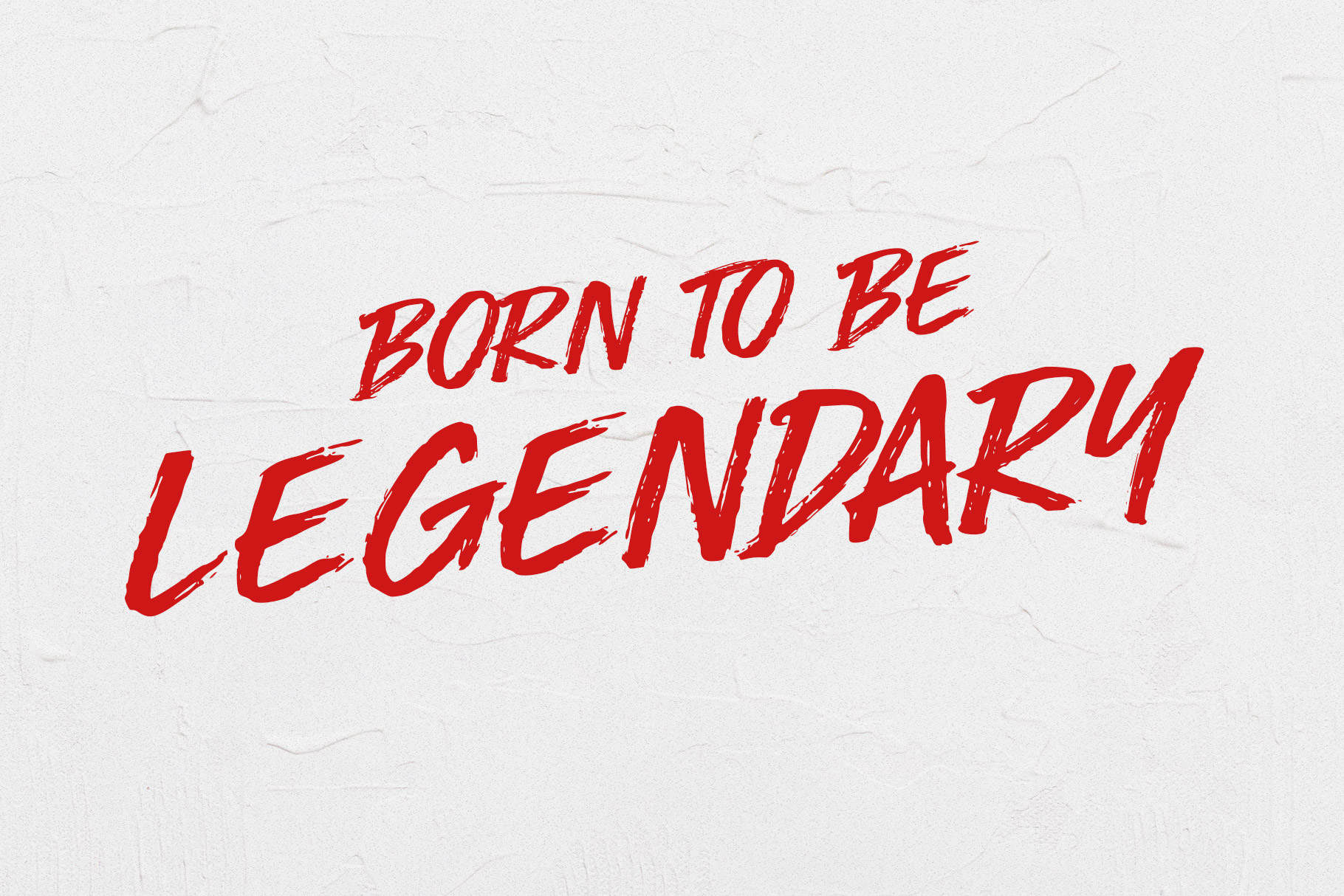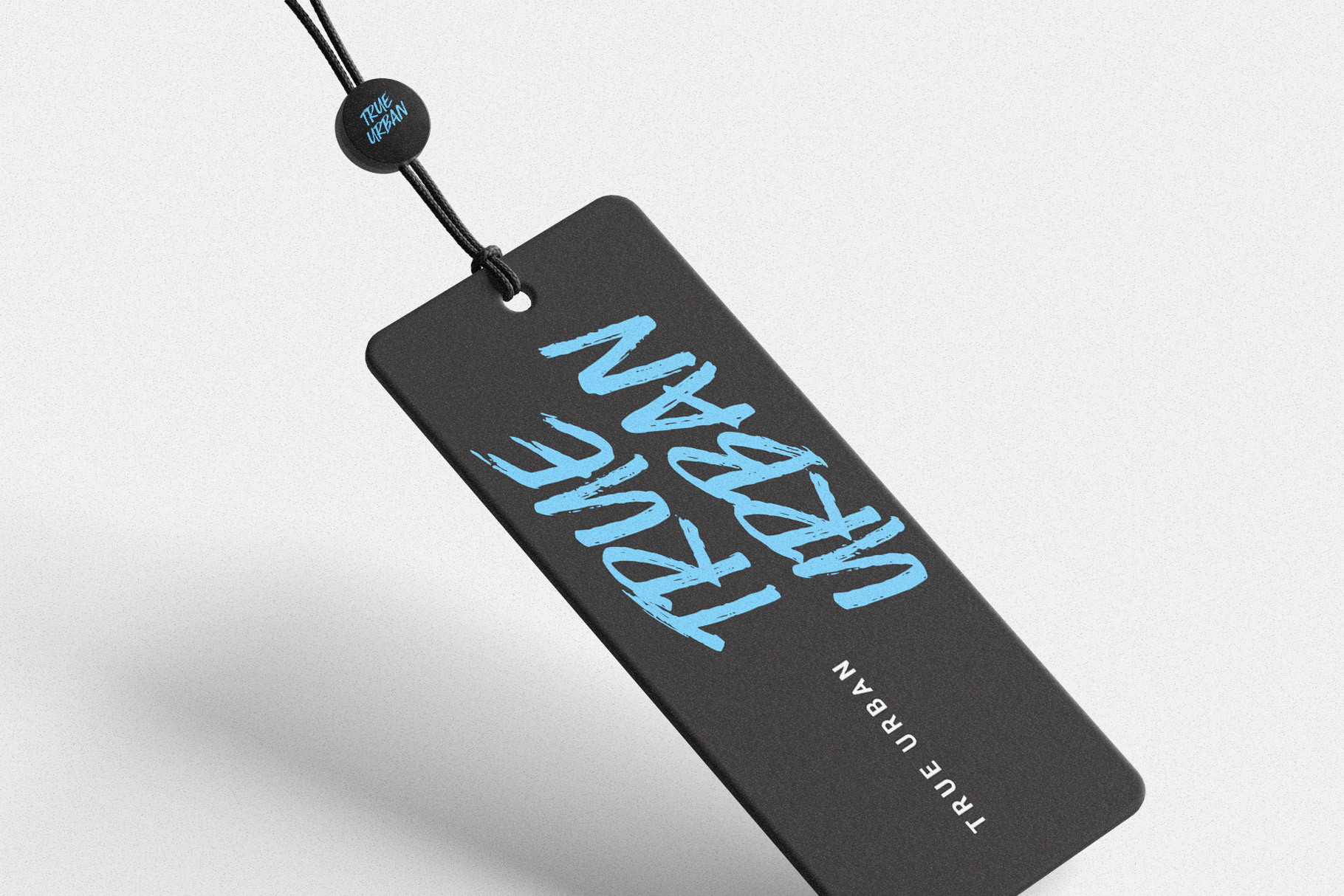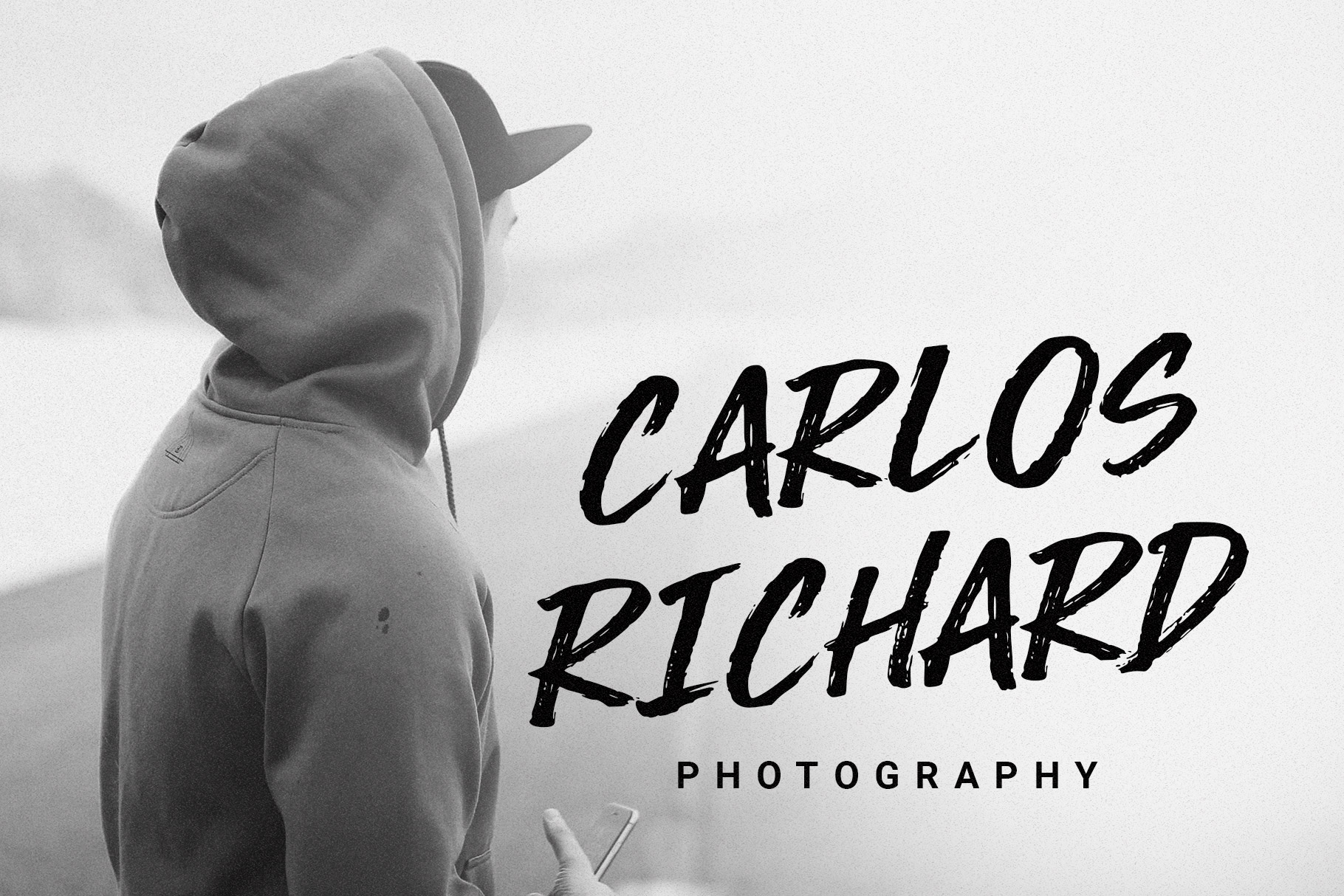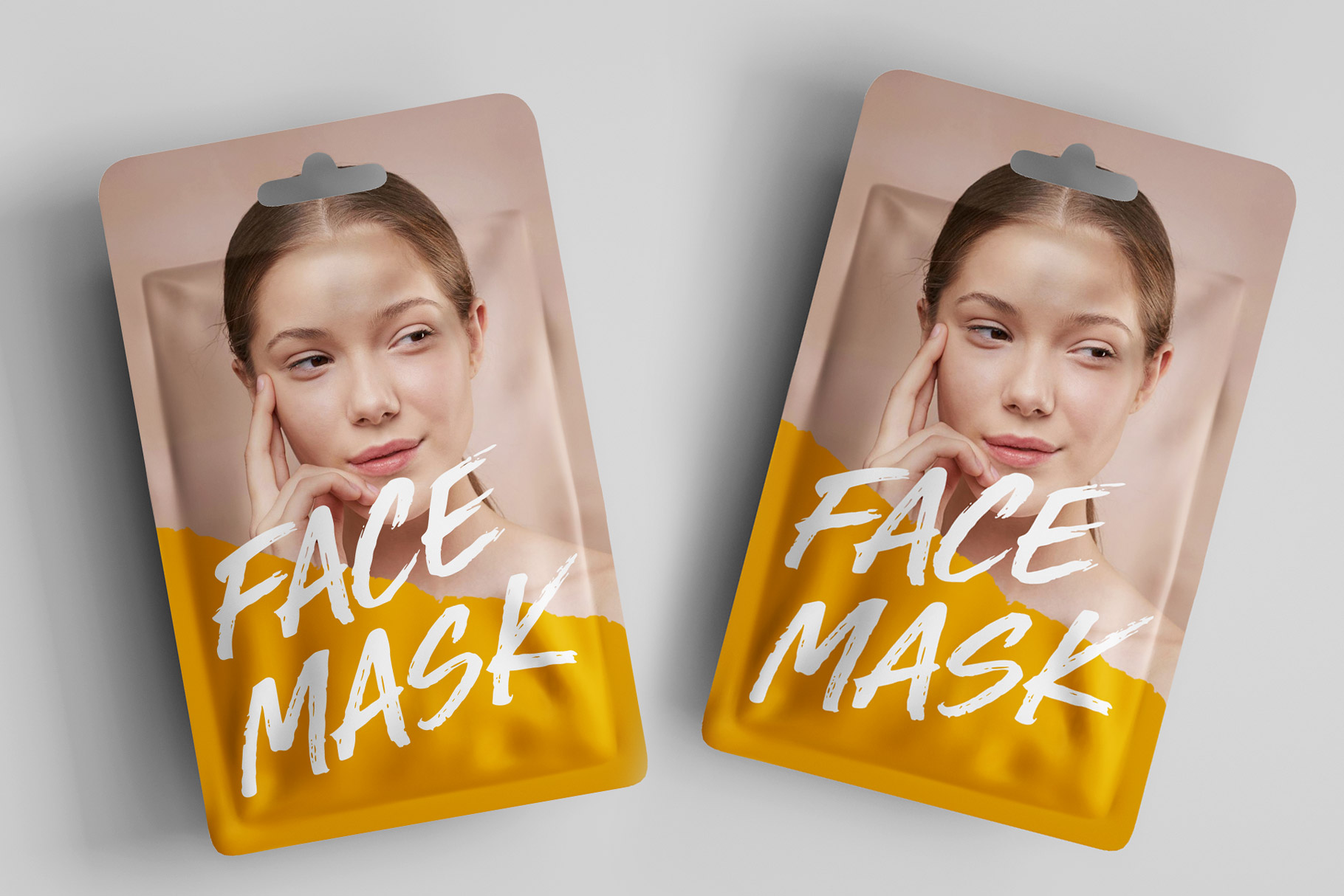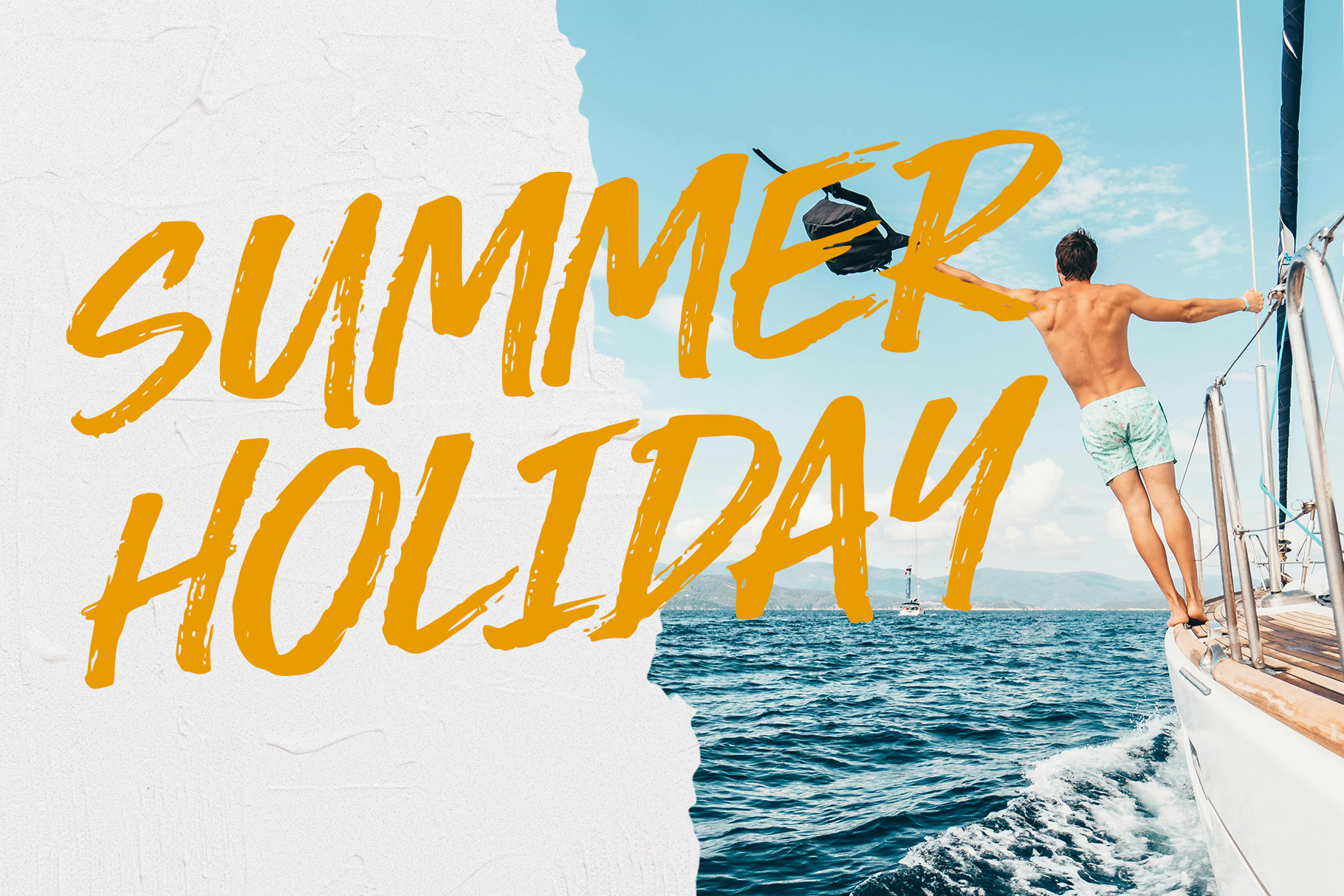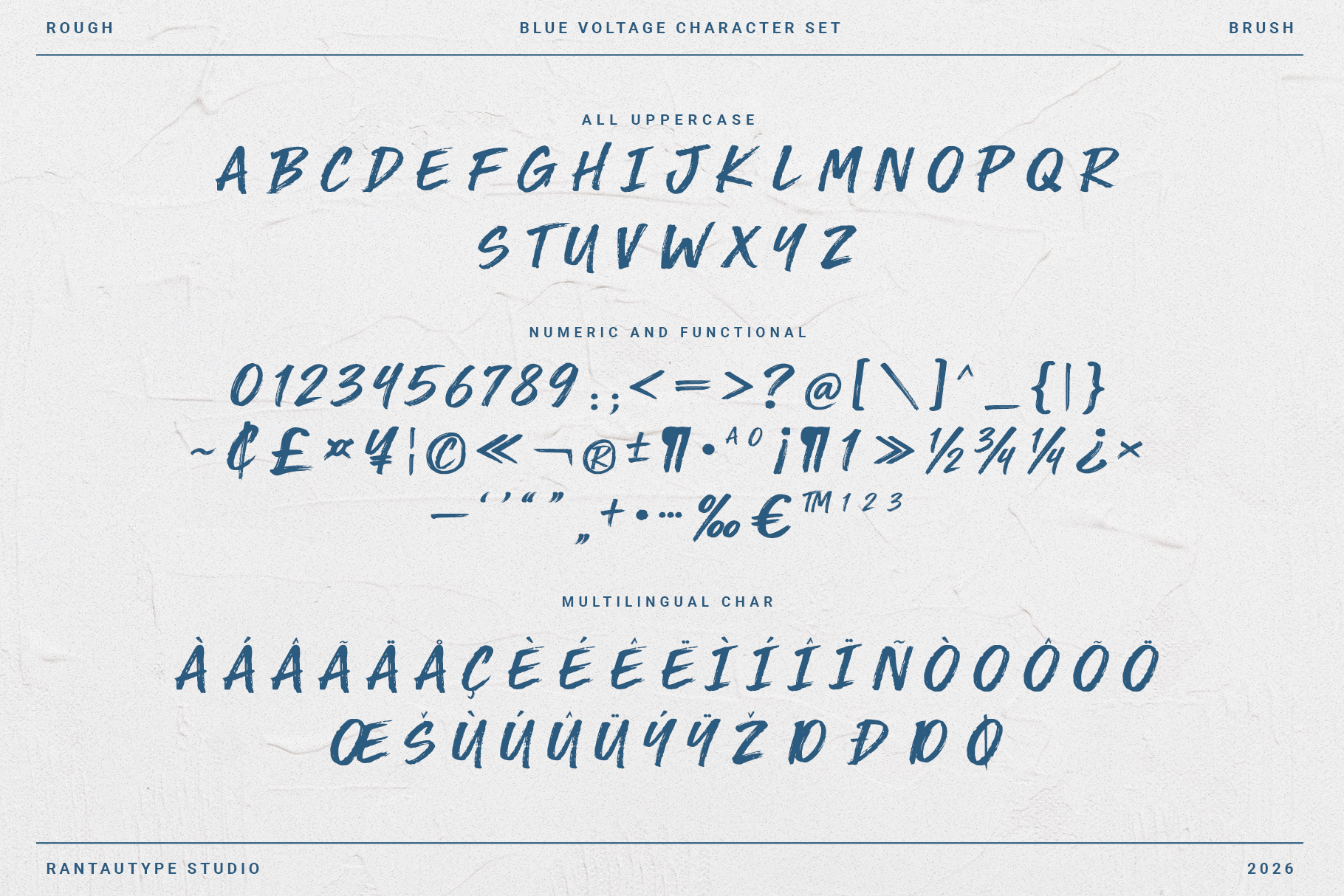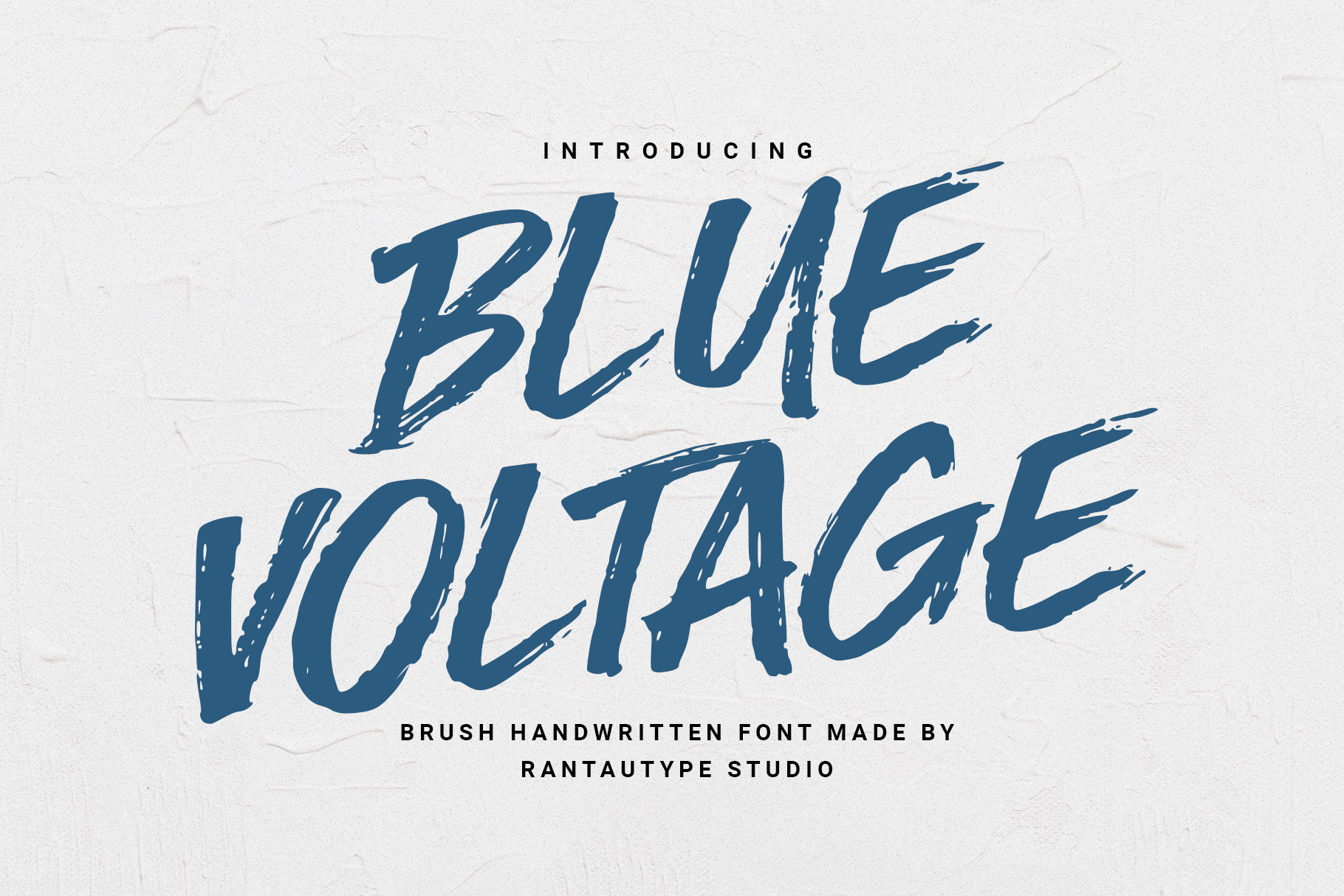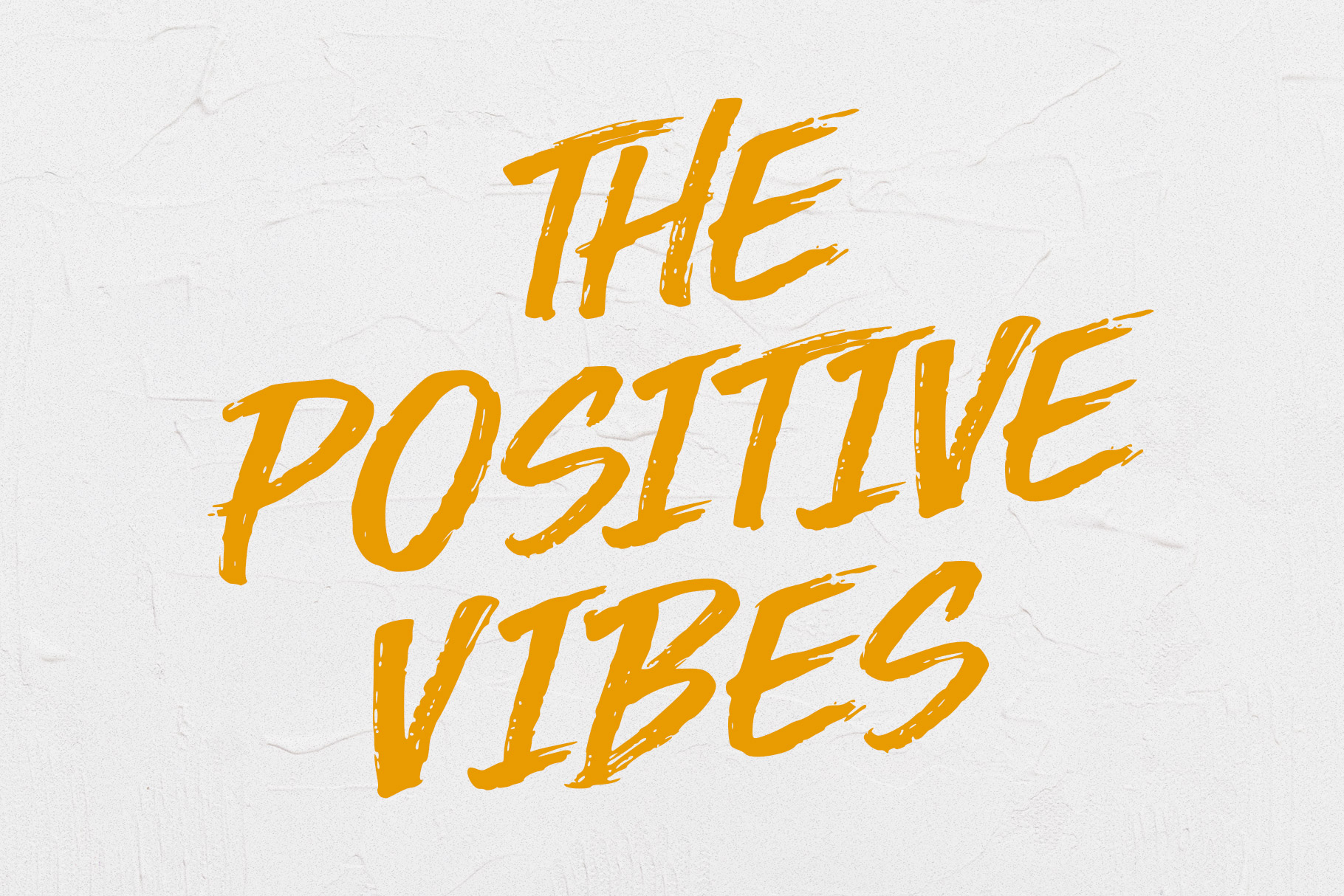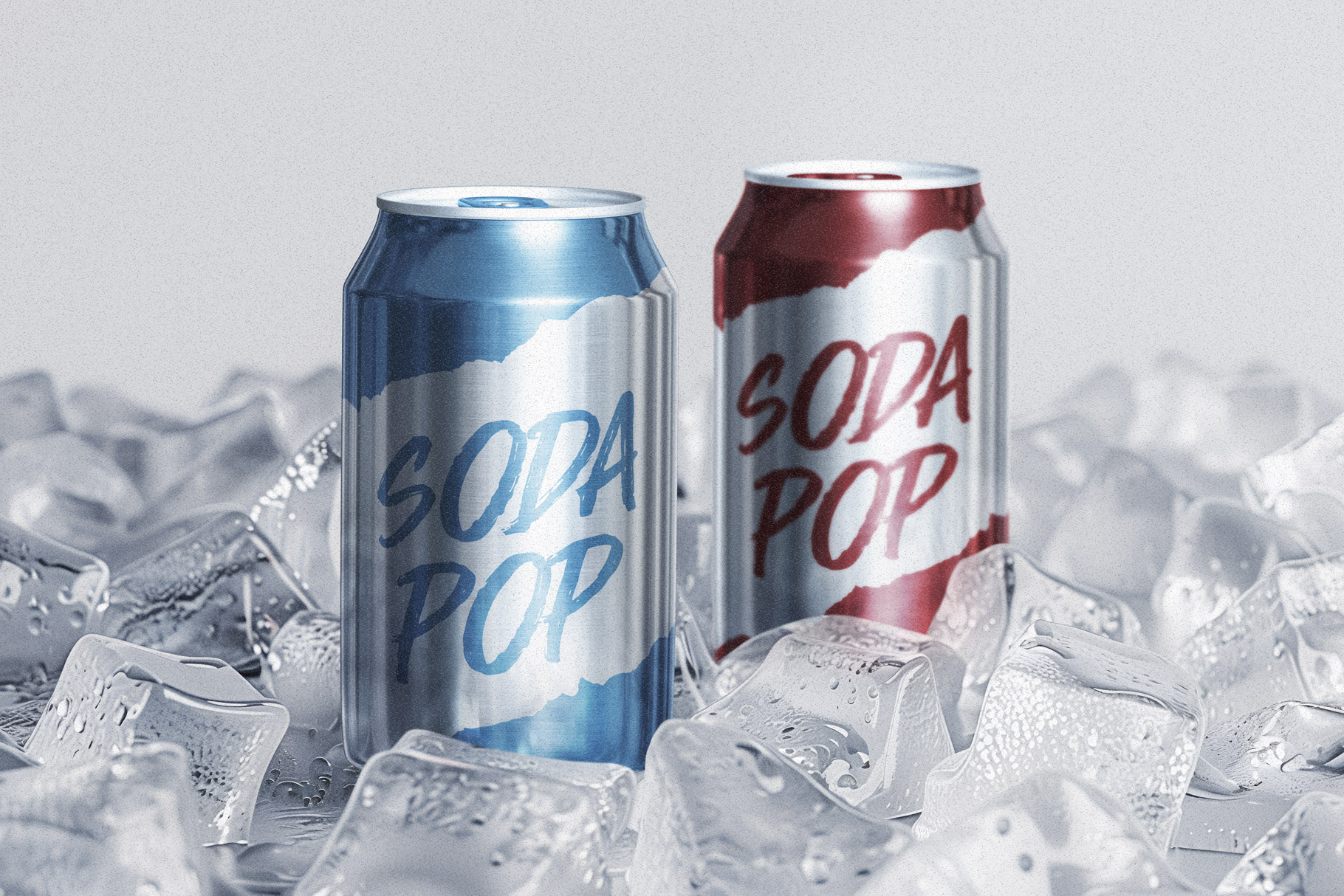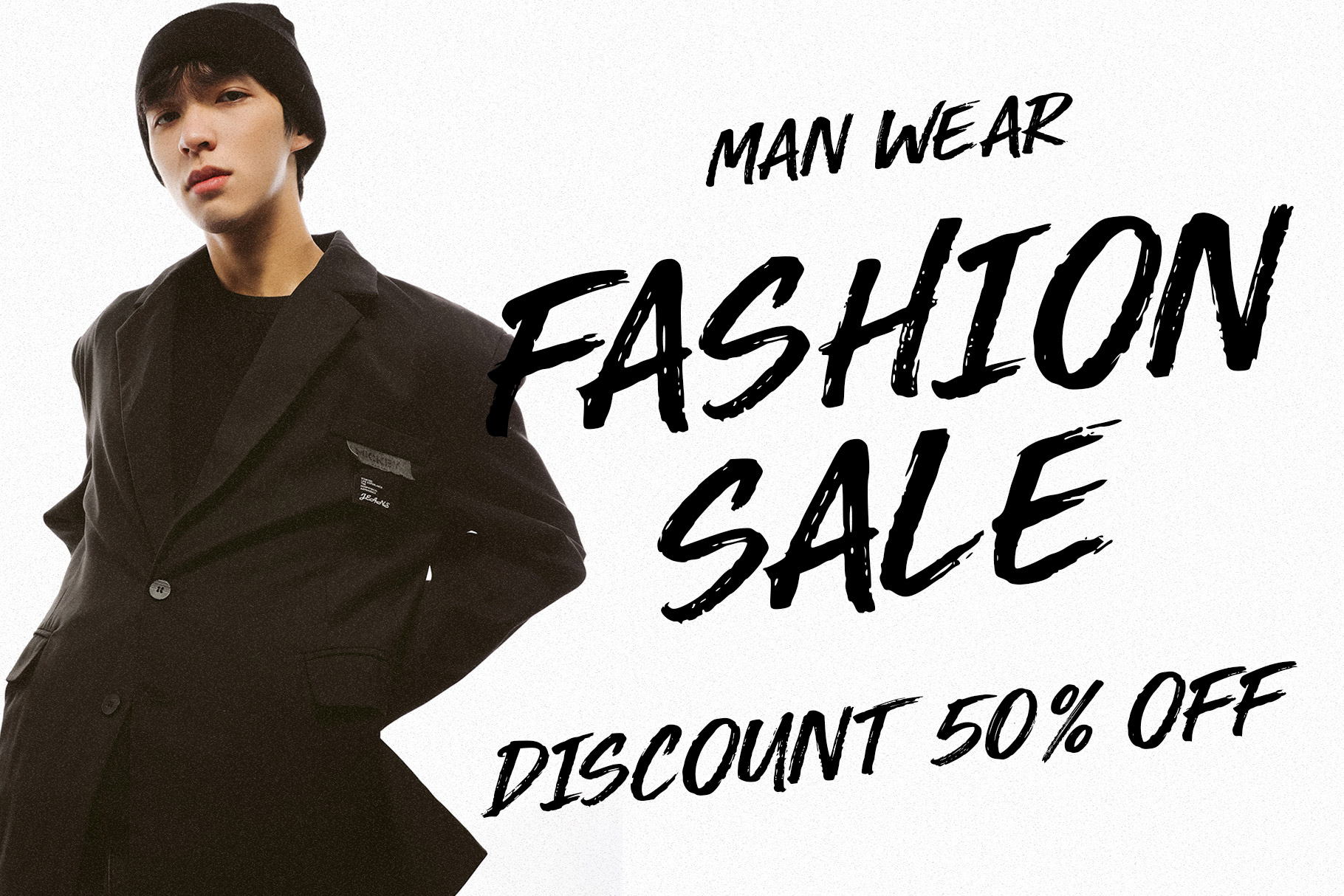
Blue Voltage Brush Font
Blue Voltage is brush font with authentic beauty of hand-painted lettering, bringing energy, personality, and expressive movement into every design. Each letter appears as if it has been carefully painted by hand, featuring textured edges, varying stroke thickness, and subtle imperfections that add warmth and character.
Blue Voltage come with confident and strong brush character. Harca is a perfectly choice for any creative endeavor, creating, modern, lifestyle design such as logotype, title, cover, branding, invitations, wedding designs, display and magazine, social media posts, advertisements, printed quotes, product packaging, corporate brand, product designs, labels, photography, watermarks, special events and any other project with modern touch.